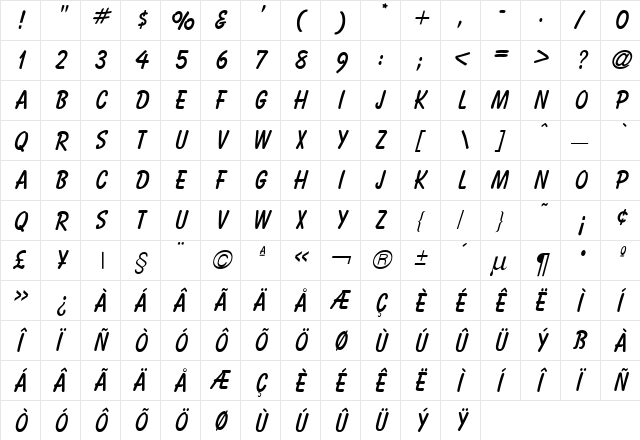
Bassoon Regular
Design Context for Bassoon Typeface
Bassoon takes a measured approach to typography — its balanced proportions and neutral character make it a reliable workhorse for both digital and print work.